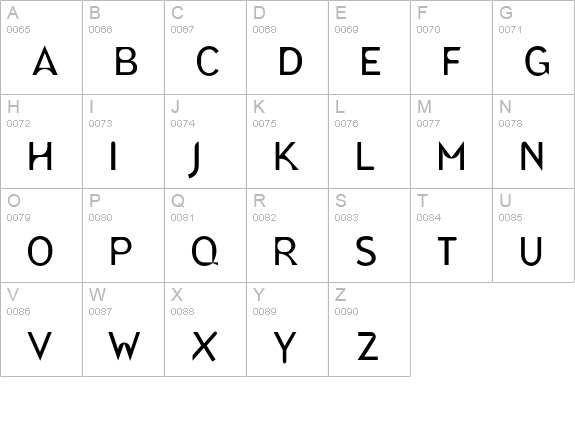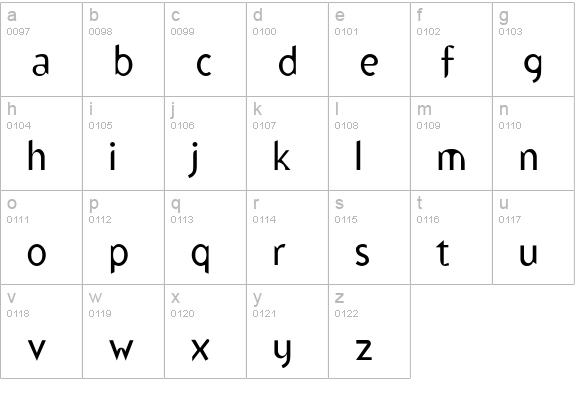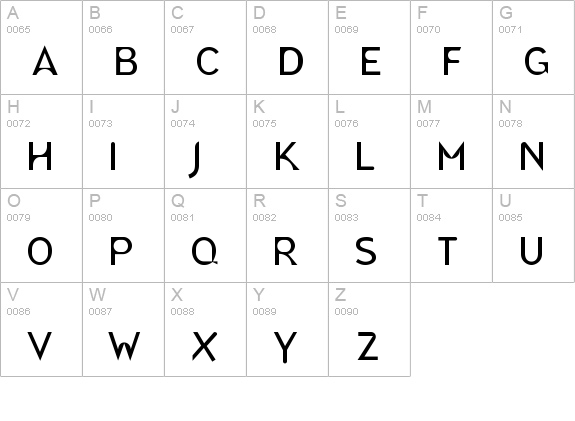
BlindfishLight font is a modern and sleek typeface that exudes elegance and sophistication. With its clean lines and minimalist design, this font is perfect for a wide range of design projects, from branding to editorial layouts. What sets BlindfishLight font apart is its versatility - it can be used for both headers and body text, making it a valuable addition to any designer's toolkit. The font's subtle curves and sharp edges create a unique visual impact that will draw in the reader's attention. Best of all, BlindfishLight font is available for free download at FontsMarket.com. This means you can easily access this stylish font and incorporate it into your projects without any extra cost. Don't miss out on this fantastic opportunity to elevate your designs with the effortlessly chic BlindfishLight font.